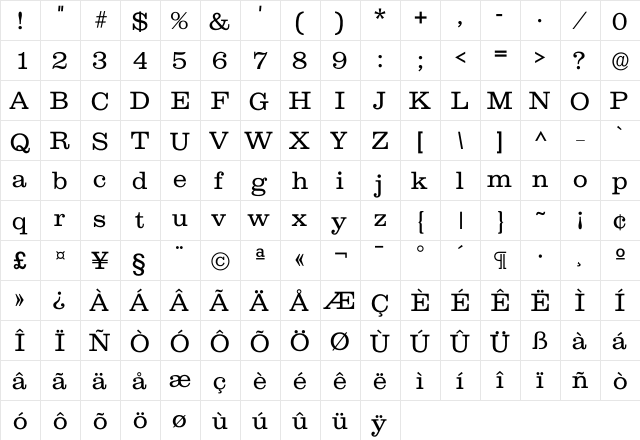
Clarxndon Light
Design Context for Clarxndon Typeface
Clarxndon offers clean, dependable letterforms without strong stylistic allegiance, making it a practical choice for designers who need flexibility. Its slender proportions lend an understated elegance to any composition.
Pro Tip: Pair Clarxndon with a font of contrasting weight or personality to build a more expressive typographic hierarchy.